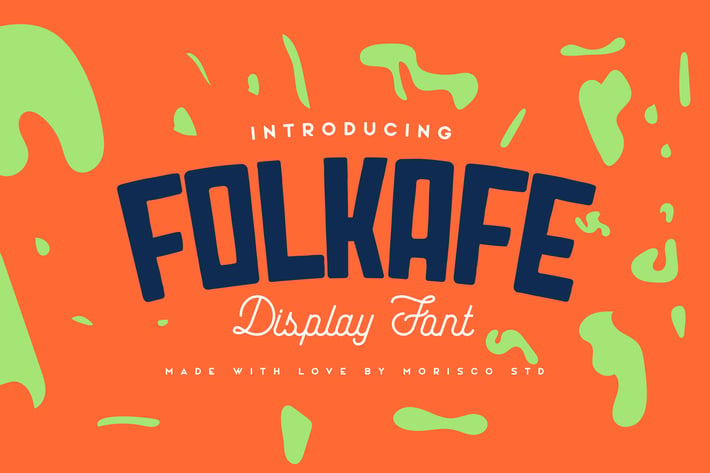
Folkafe - Display Font
Introducing Folkafe - Display Font, perfect for branding projects, a logo, badge, insignia, packaging, headline, poster, t-shirt/apparel, greeting card, and anything else what you want.
All Uppercase Character
Numerals
Vocal Alternate
All Uppercase Character
Numerals
Vocal Alternate